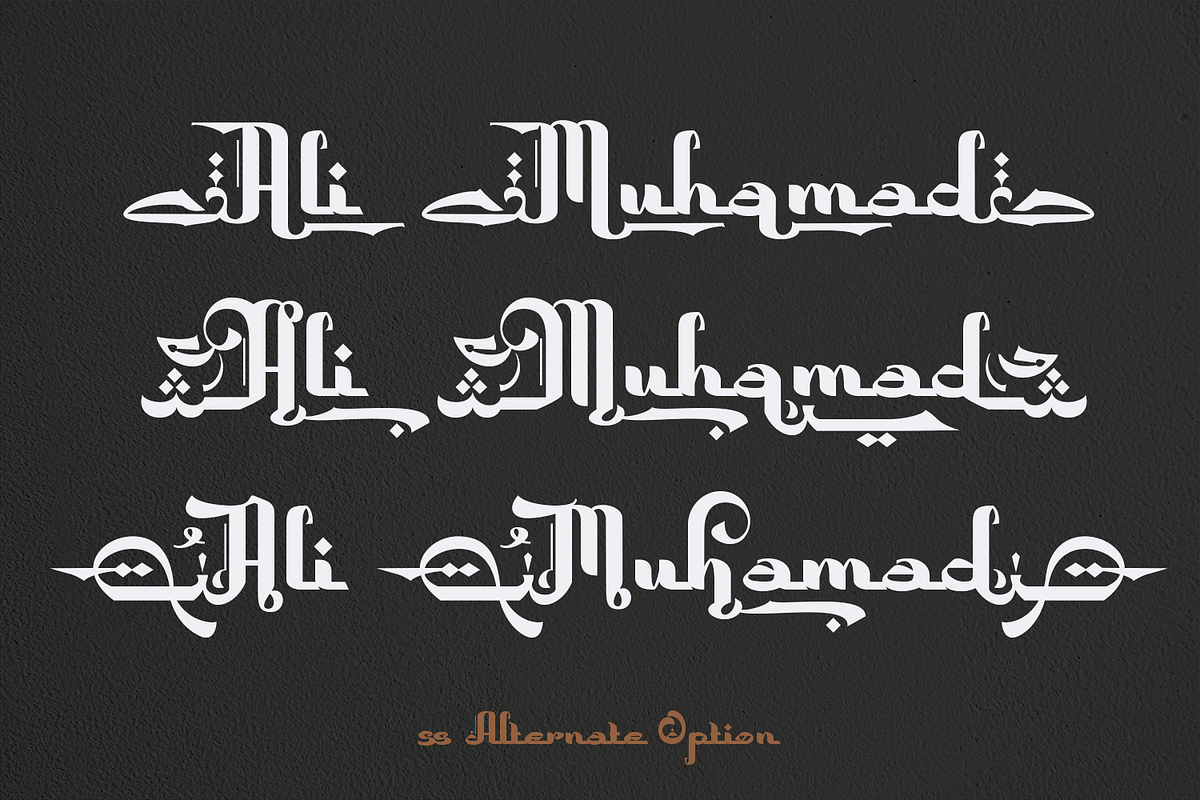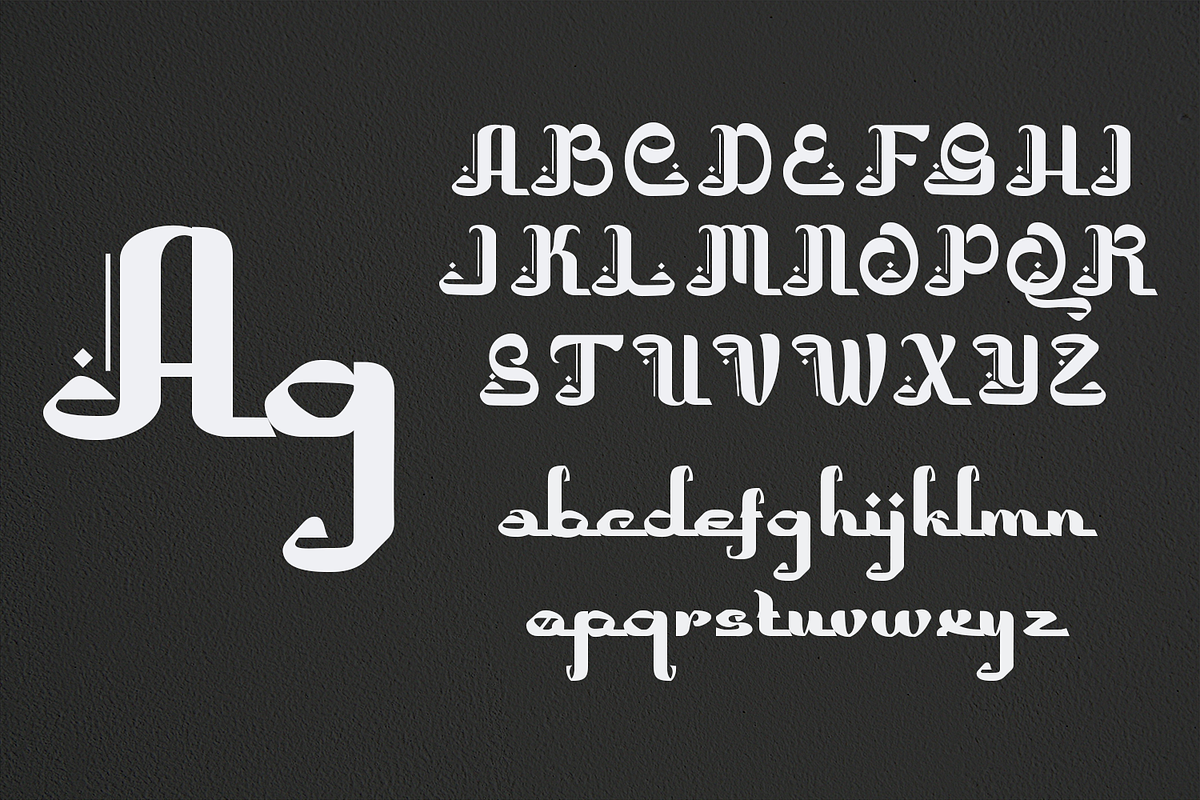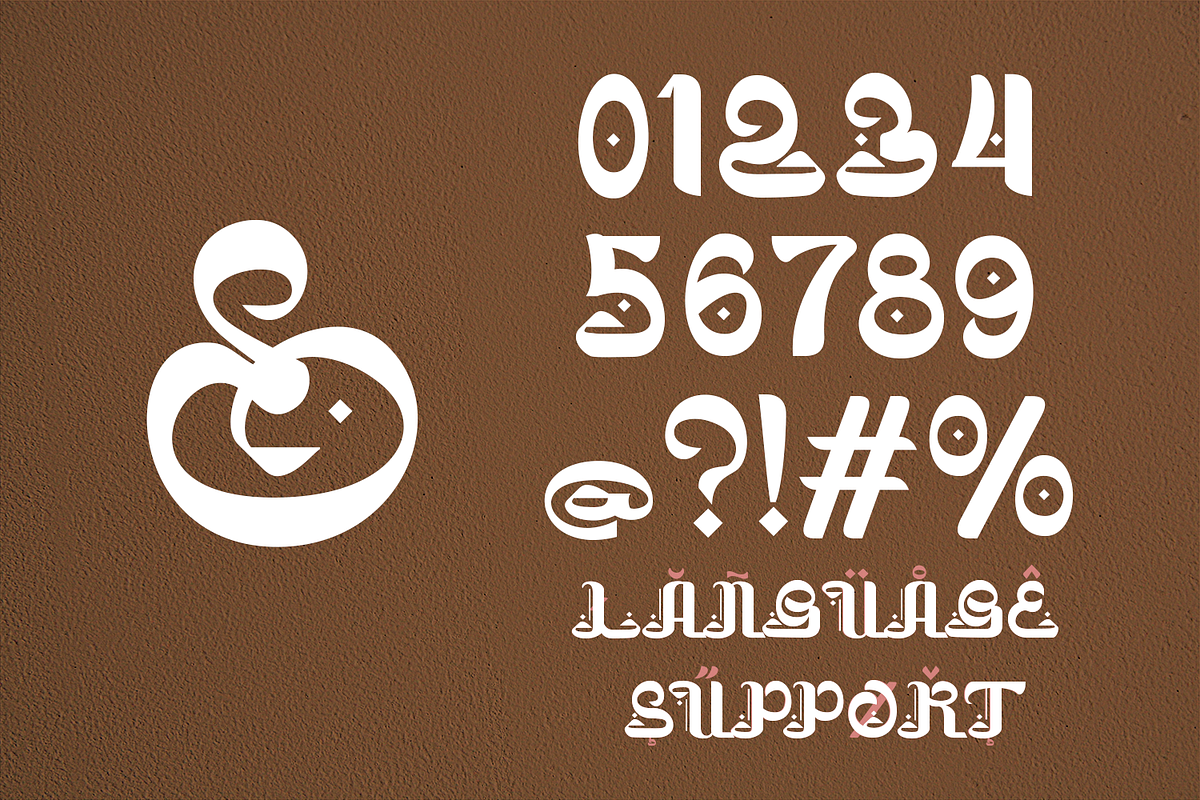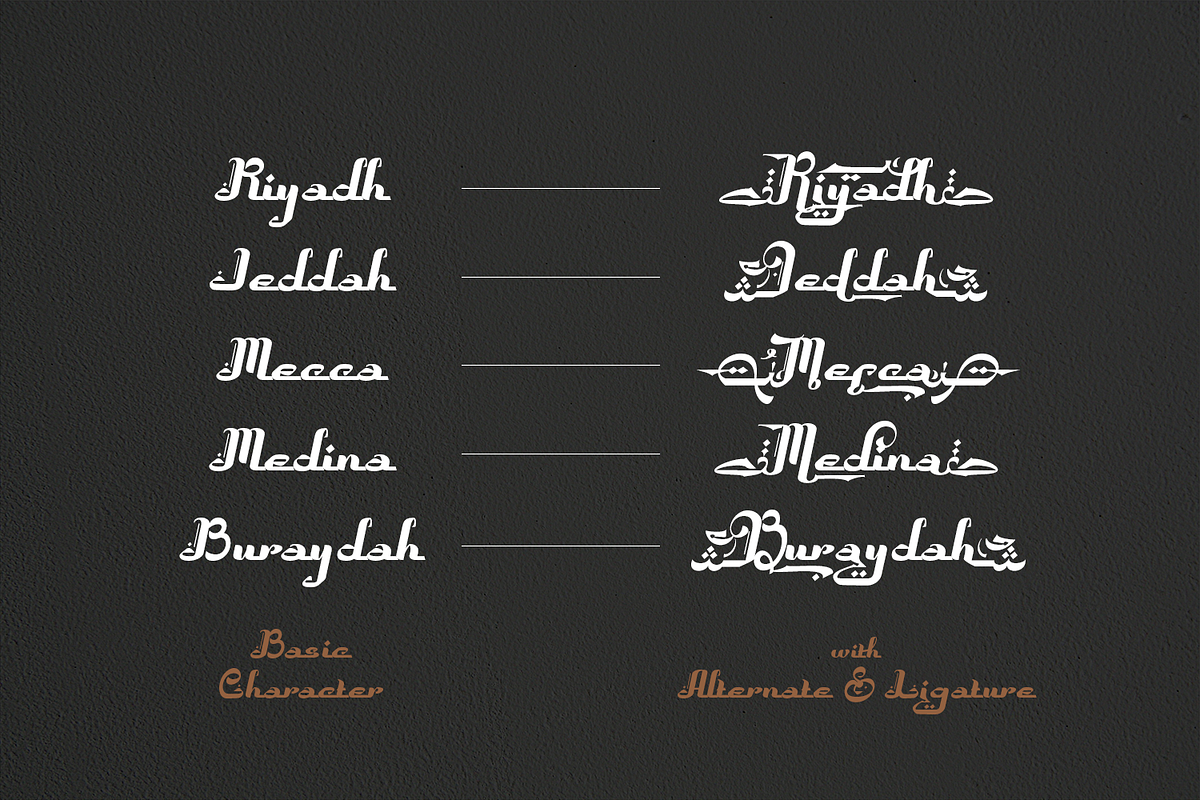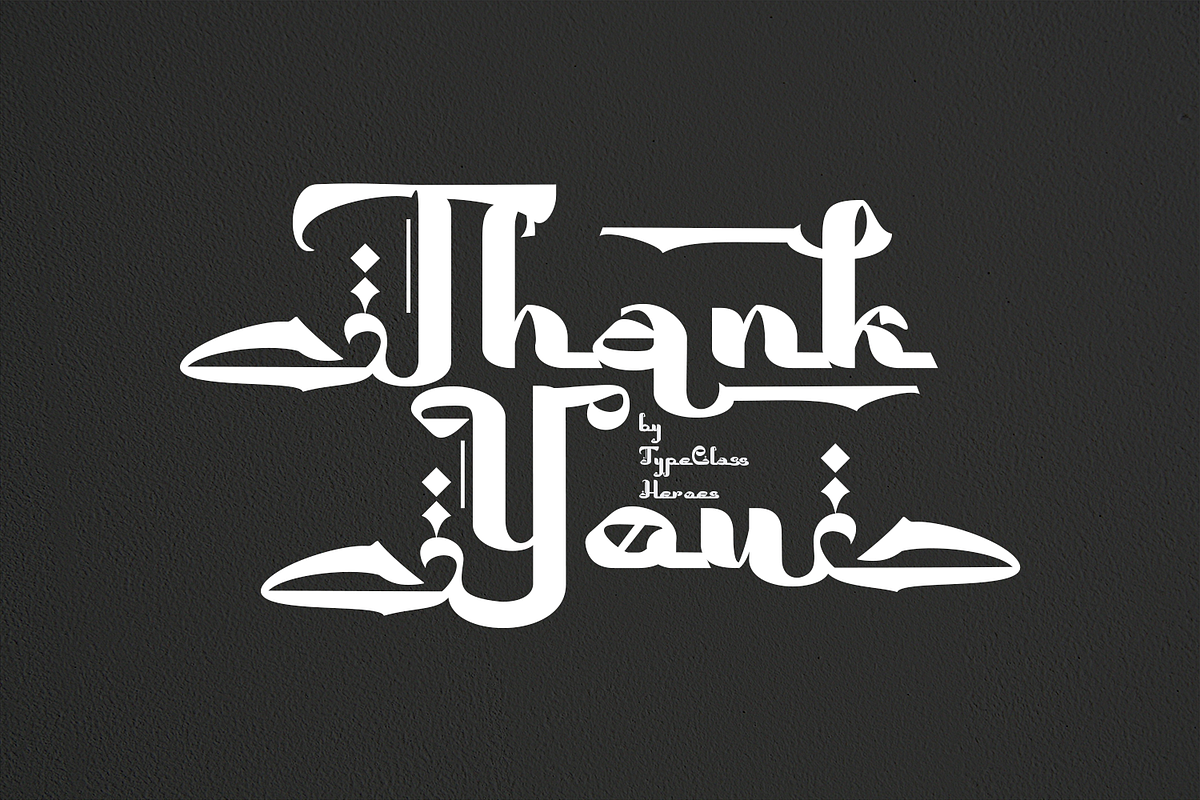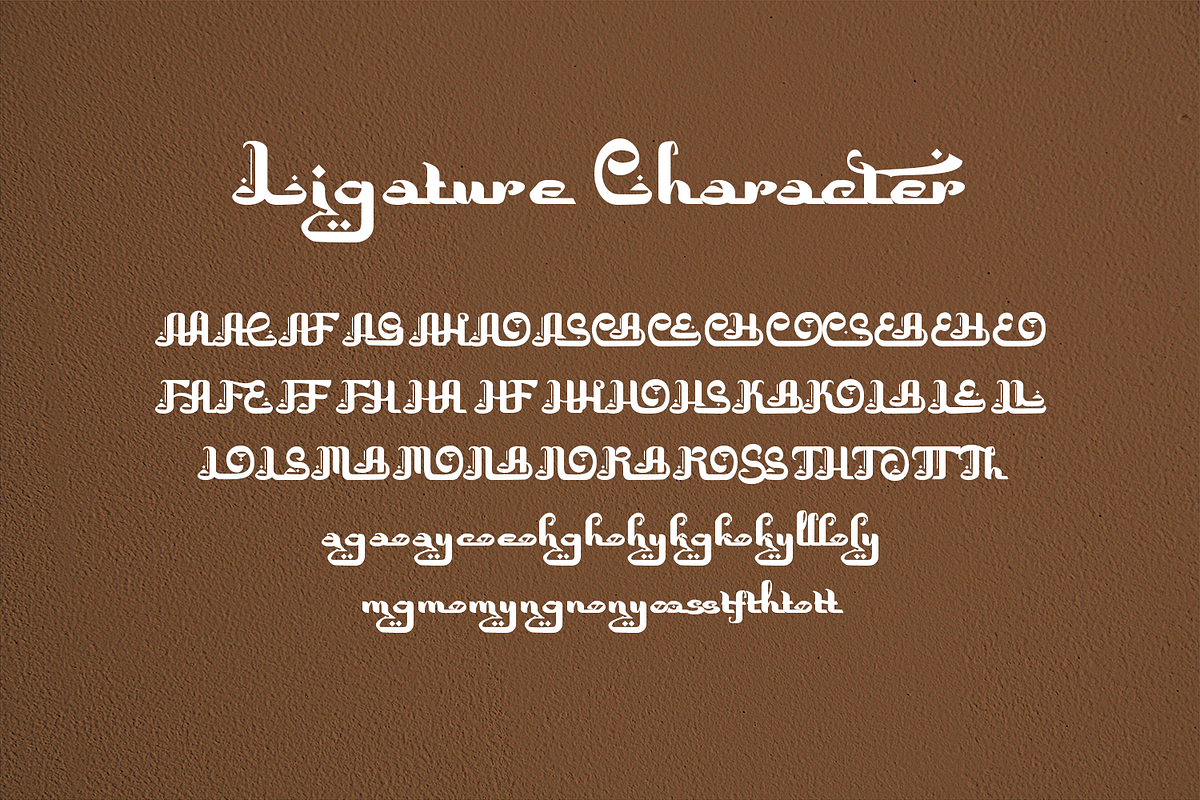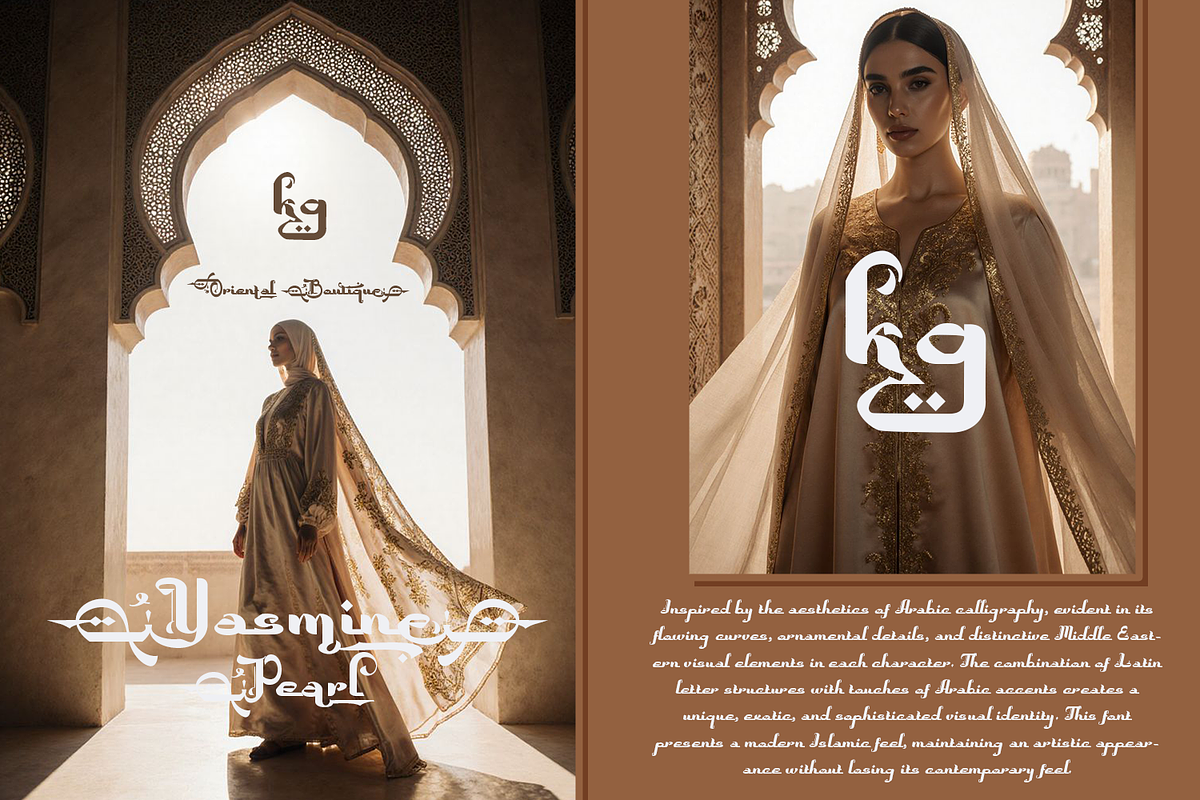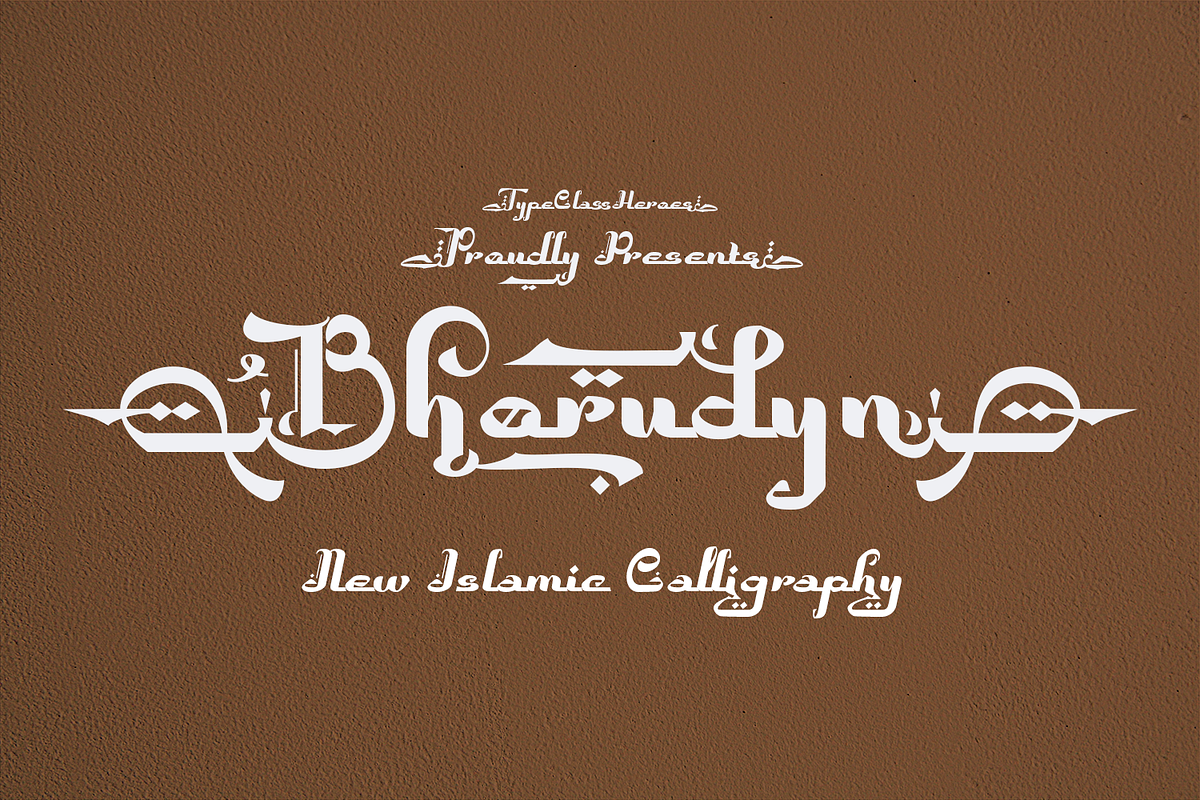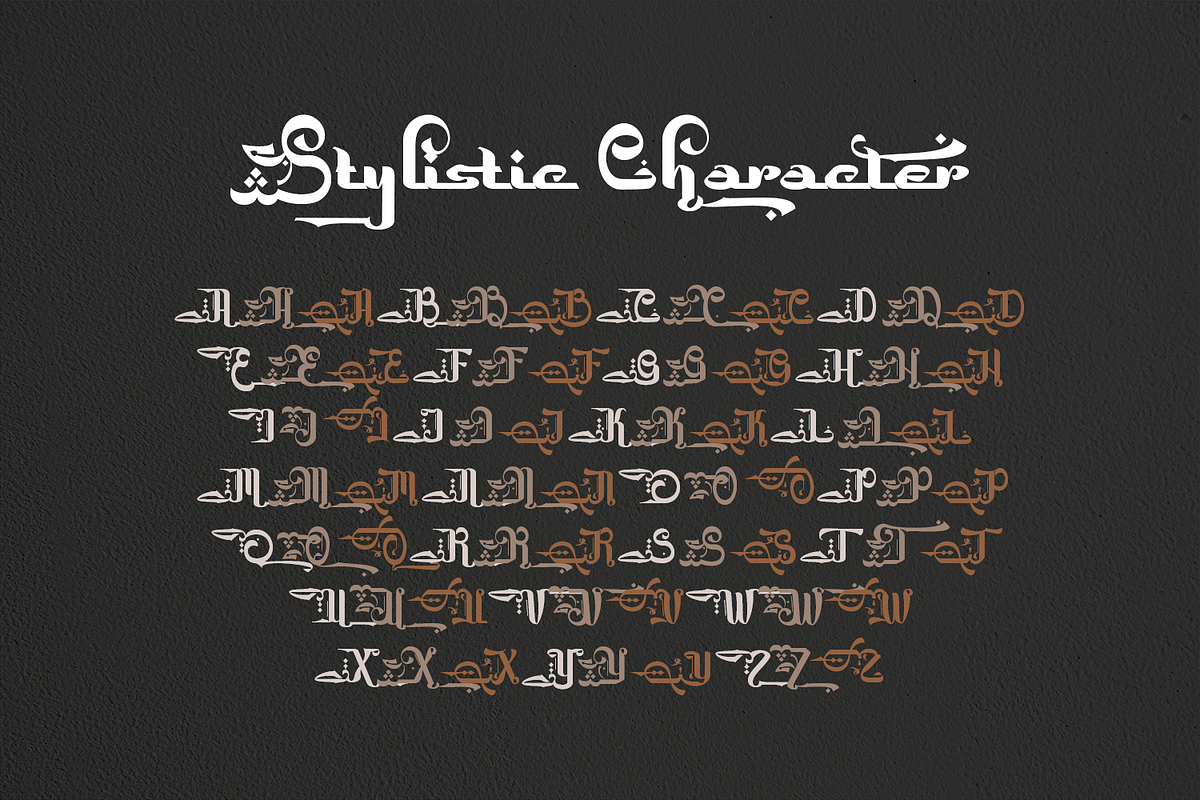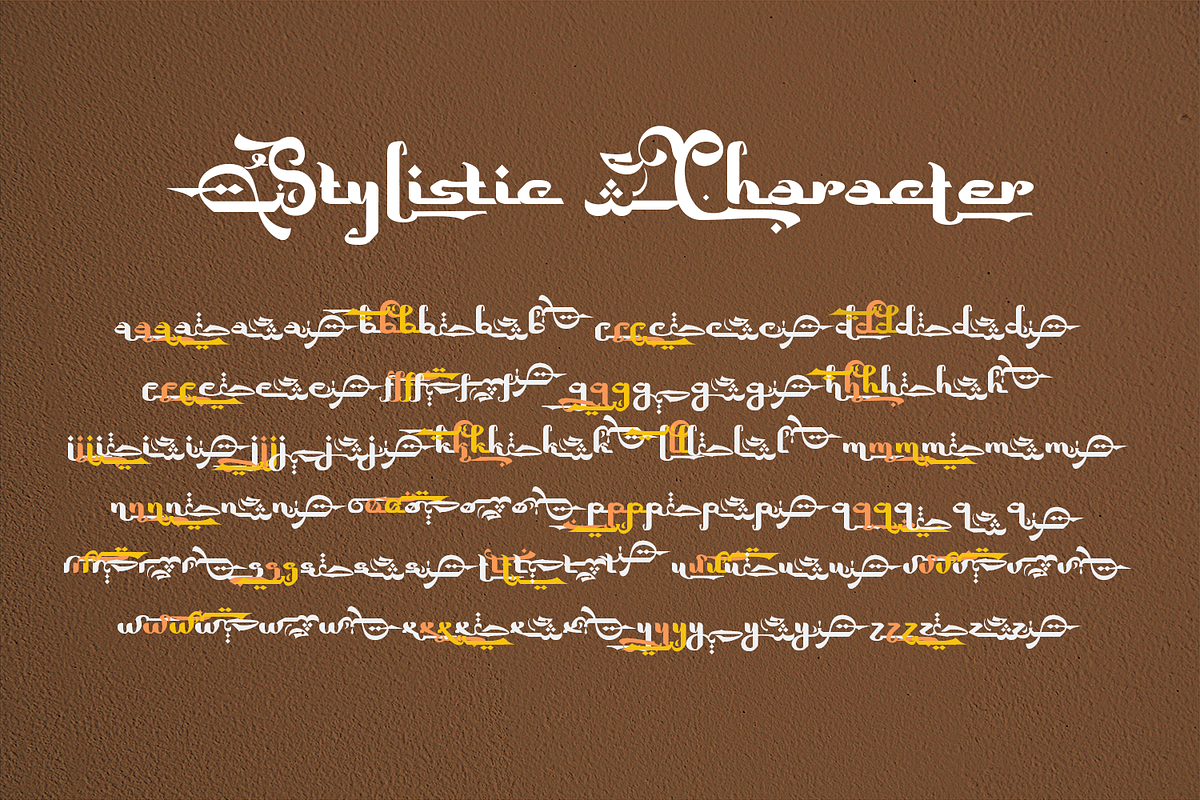
Bhorudyn - New Islamic Calligraphy
Introducing Bhorudyn, this decorative font is inspired by the aesthetics of Arabic calligraphy, evident in its flowing curves, ornamental details, and distinctive Middle Eastern visual elements in each character. The combination of Latin letter structures with touches of Arabic accents creates a unique, exotic, and sophisticated visual identity. This font presents a modern Islamic feel, maintaining an artistic appearance without losing its contemporary feel.
The visual character of this font conveys an elegant, exclusive, spiritual, and luxurious feel, with decorative details that reinforce its cultural identity without compromising readability. The bold yet ornamental letterforms give this font strong visual appeal and easily capture attention.
This font is suitable for logos or brand identities to create a premium and distinctive look, poster titles, banners, and event promotions such as Ramadan, Eid al-Fitr, or religious studies; product packaging designs for perfume, halal food, or halal skincare products, invitation designs, certificates, or Islamic wedding decorations with an elegant and luxurious feel, headlines or display text in designs, as its artistic appearance is more prominent at larger sizes.
Number & Symbol
International Glyphs
Alternative
Ligature